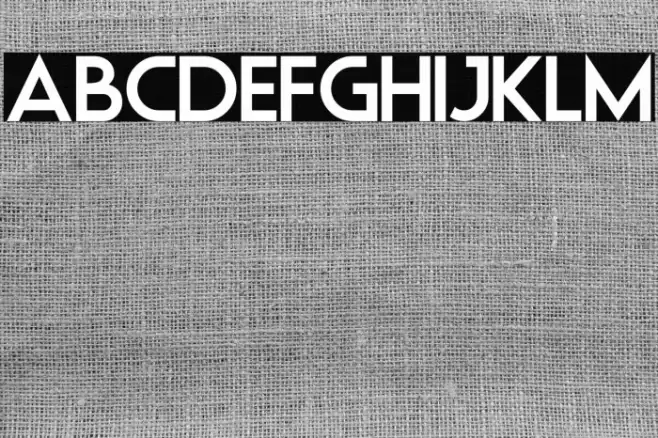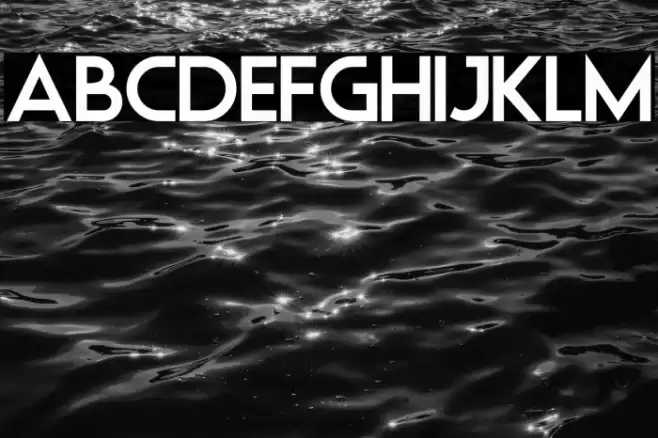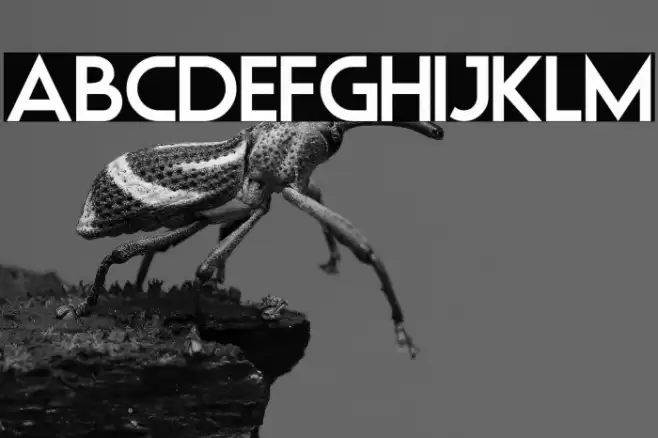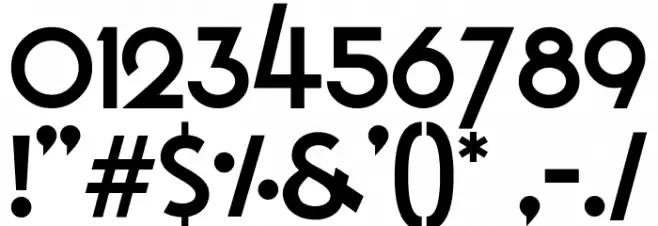
Elastic Stretch Font
Elastic Stretch Description
This font features a bold and geometric design, characterized by its clean lines and sharp angles. The uppercase letters are particularly striking, with a modern and minimalist aesthetic that emphasizes clarity and readability. The lowercase letters maintain the same geometric style, ensuring consistency across the typeface. Numbers are equally bold and clear, making them suitable for a variety of applications. The special characters are designed to complement the overall style, with a focus on simplicity and functionality. This font is ideal for projects that require a strong visual impact and a contemporary look.
A bold, geometric font with clean lines and a modern aesthetic from Uncategorized fonts.
- Font: Elastic Stretch